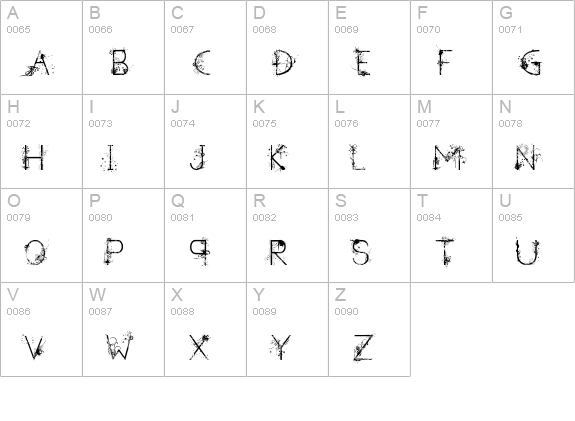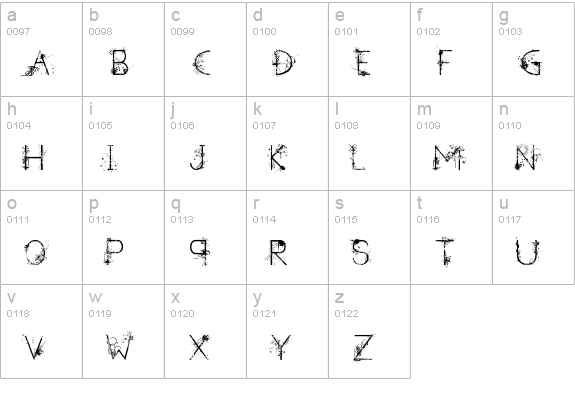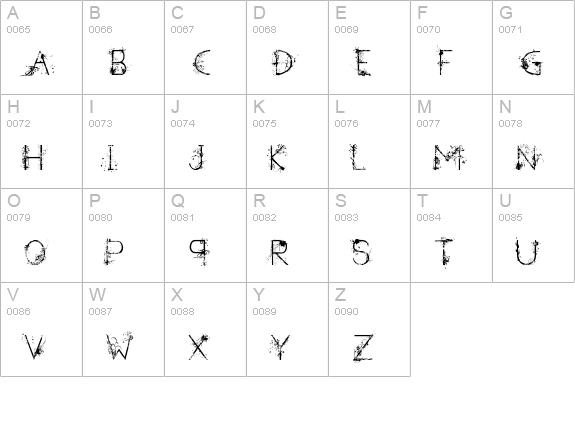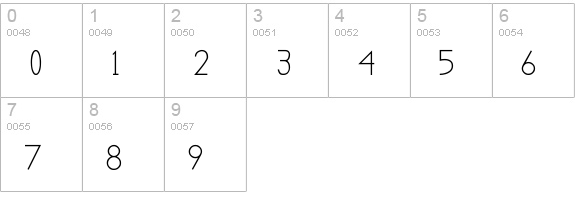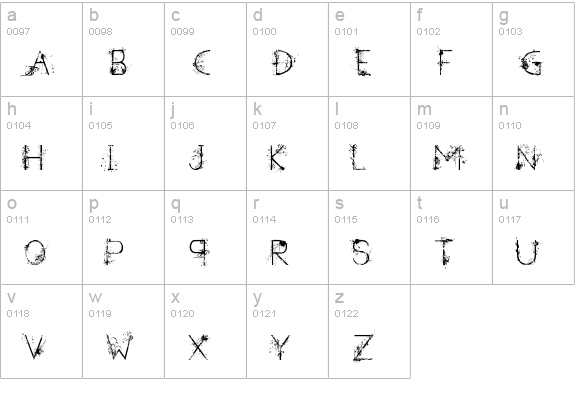
A new Heard Decorative - LJ-Design Studios Decorativa Font Details
Introducing the captivating and exquisite LJ-Design Studios Decorativa font, a true masterpiece in the realm of typography. With its impeccable design and intricate details, this font is set to elevate any project to new heights of creativity and sophistication. The LJ-Design Studios Decorativa font is a perfect blend of elegance and modernity, making it suitable for a wide range of applications. Whether you are designing a logo, creating a stunning website, or crafting eye-catching social media posts, this font will effortlessly captivate your audience and leave a lasting impression. What sets the LJ-Design Studios Decorativa font apart is not only its stunning aesthetics, but also its versatility. From bold headlines to delicate script, this font offers a wide array of styles that can be customized to suit any project. With its abundance of alternate characters and ligatures, you have the freedom to create truly unique and personalized designs. And the best part? LJ-Design Studios Decorativa font is available for free! Yes, you heard it right. This incredible font can be freely downloaded at FontsMarket.com, allowing you to unleash your creativity without any limitations. Now, you can bring your design visions to life without worrying about breaking the bank. So why wait? Discover the endless possibilities that LJ-Design Studios Decorativa font has to offer. Download it for free today at FontsMarket.com and let your imagination run wild. Elevate your designs, make a statement, and leave a lasting impression with this extraordinary font.